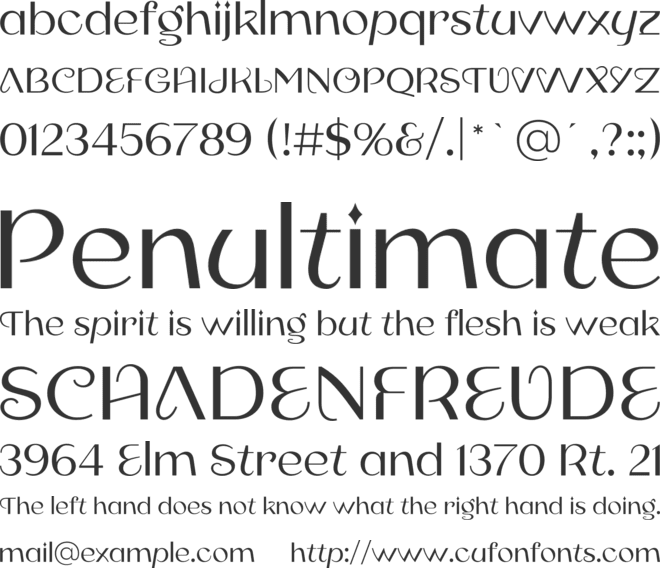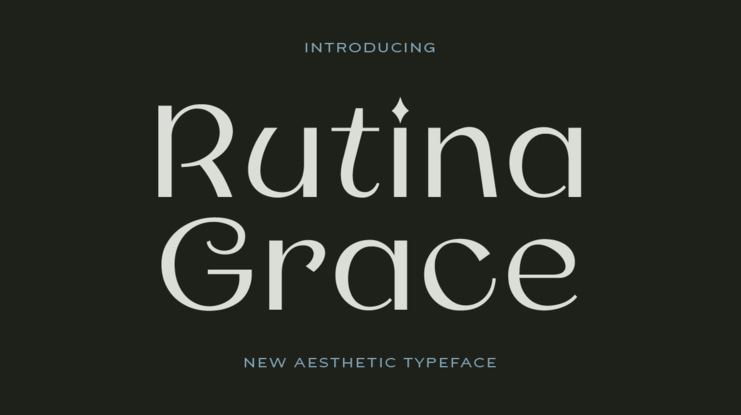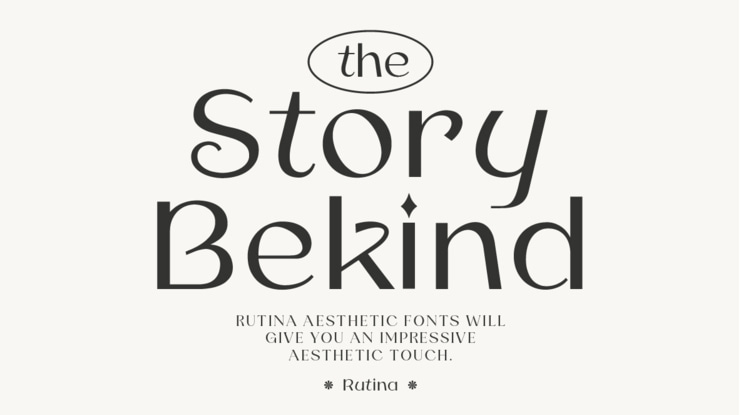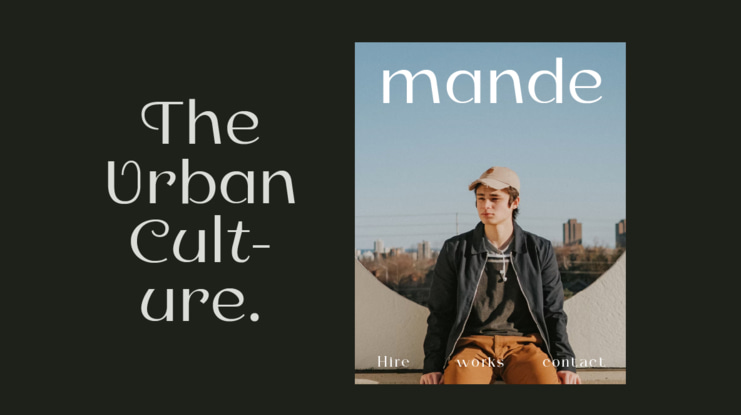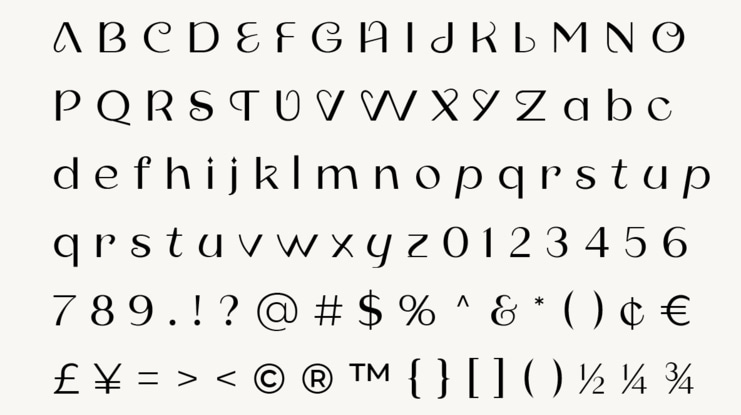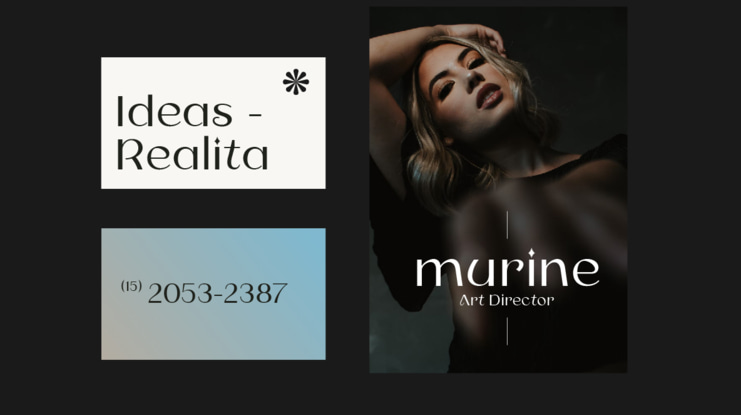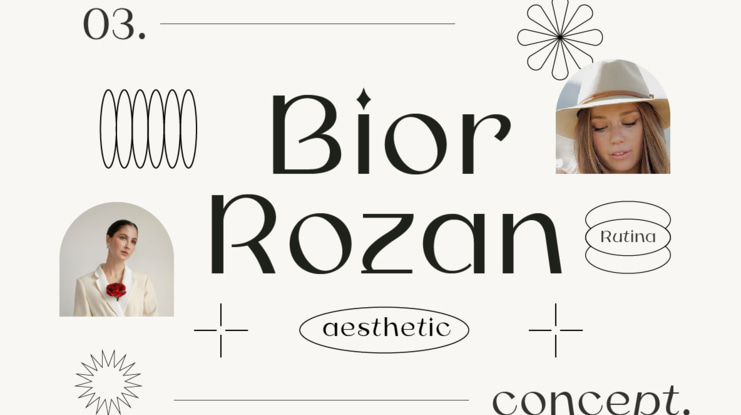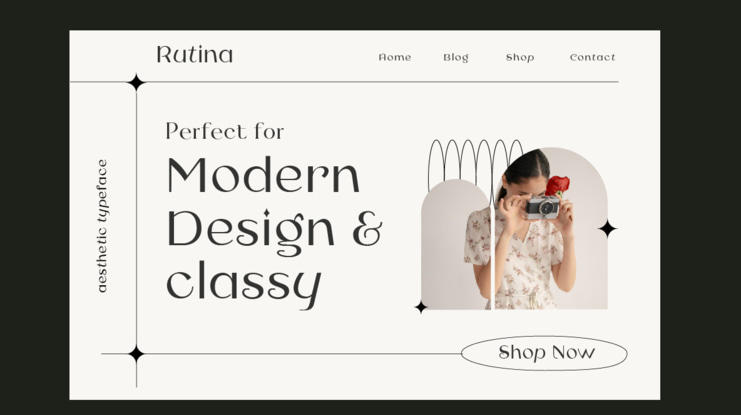
Rutina Grace Font
Rutina Aesthetic Fonts is a font that combines a modern, elegant and inspiring aesthetic. With a variety of unique styles and characteristics, this font is designed to give a creative and aesthetic touch to your design projects.
Whether your design project is a graphic design, website display, logo, banner, or other digital artwork, Rutina Aesthetic Fonts will provide an impressive aesthetic touch.